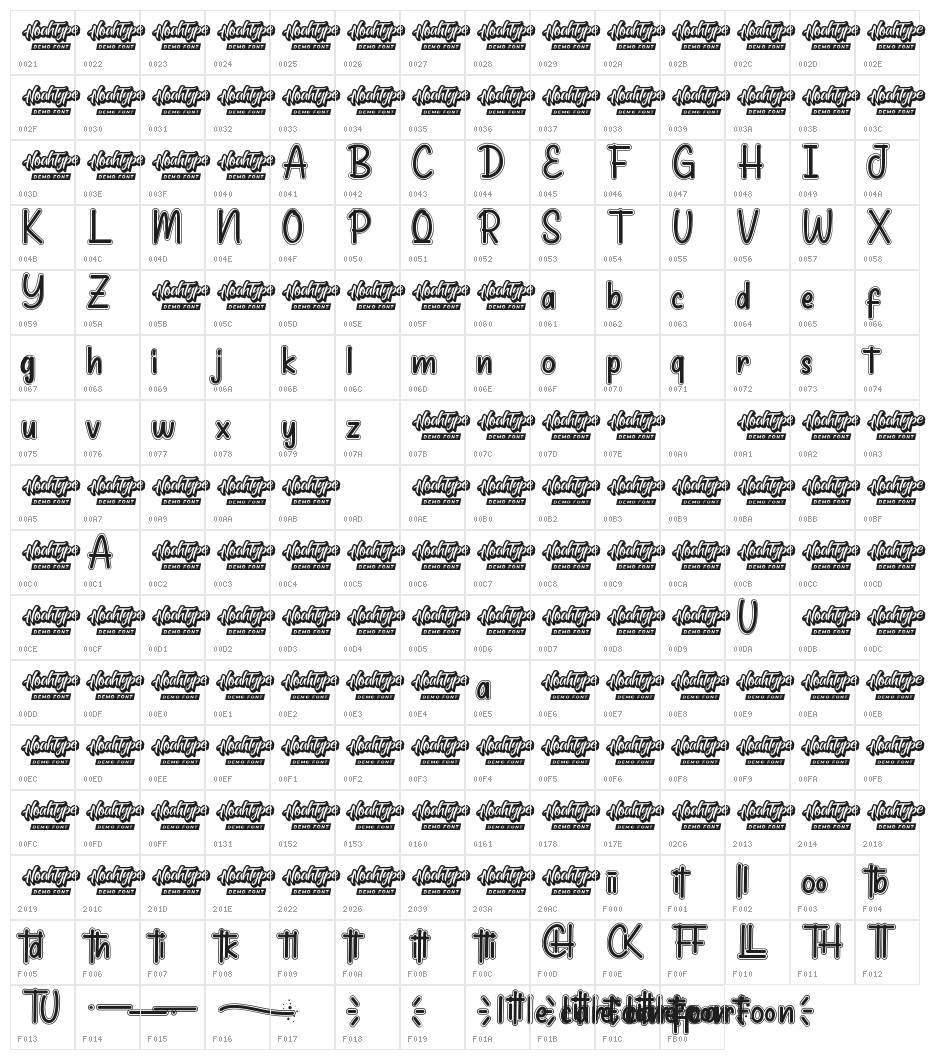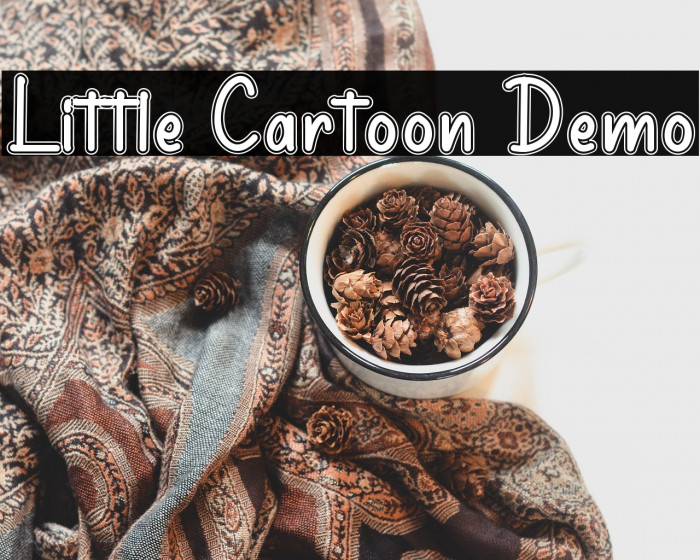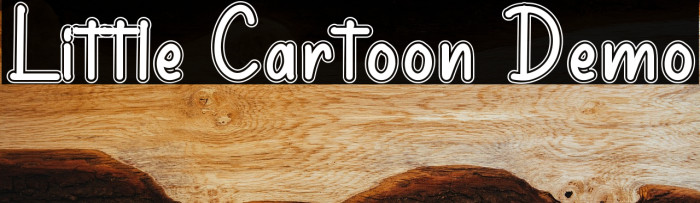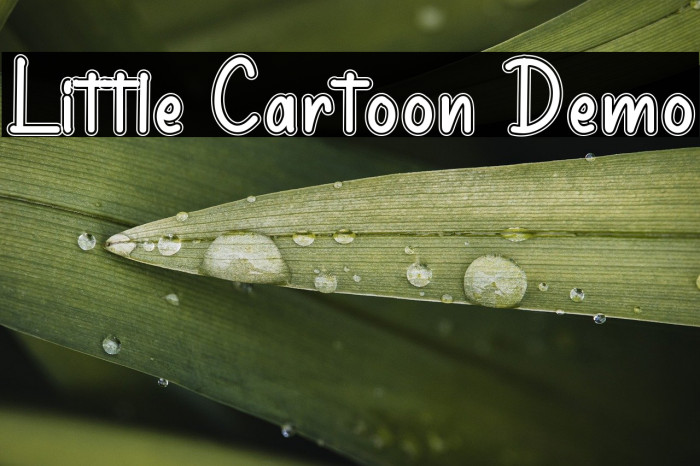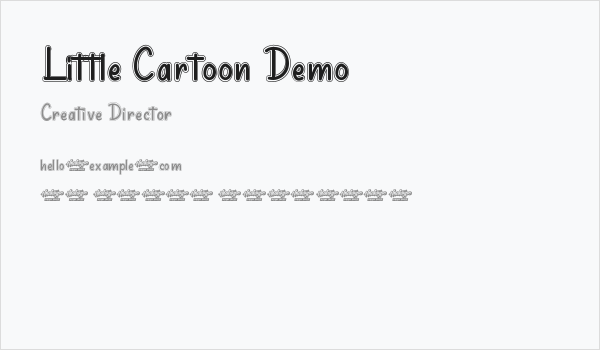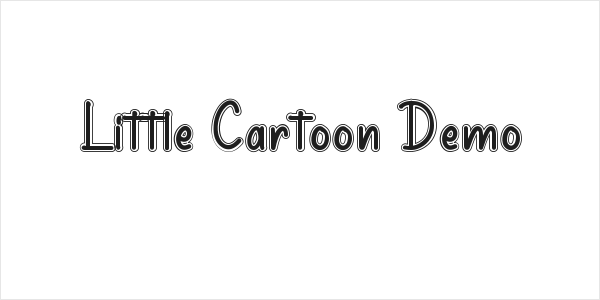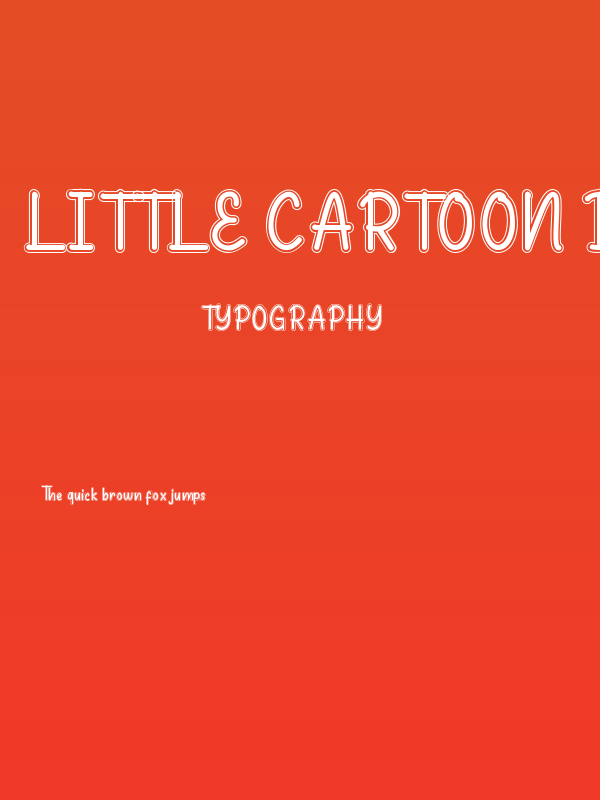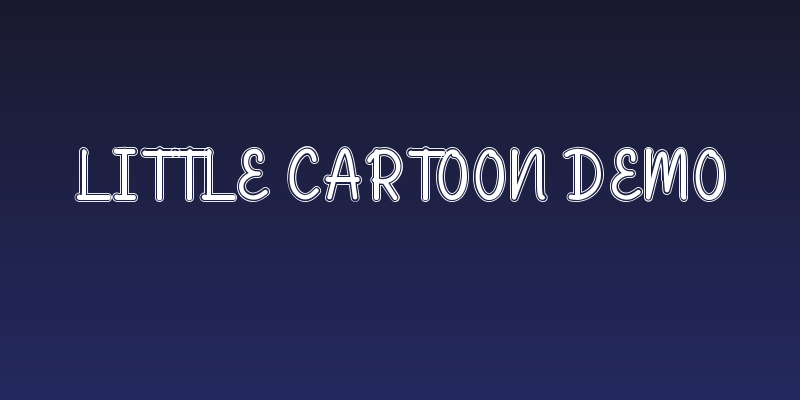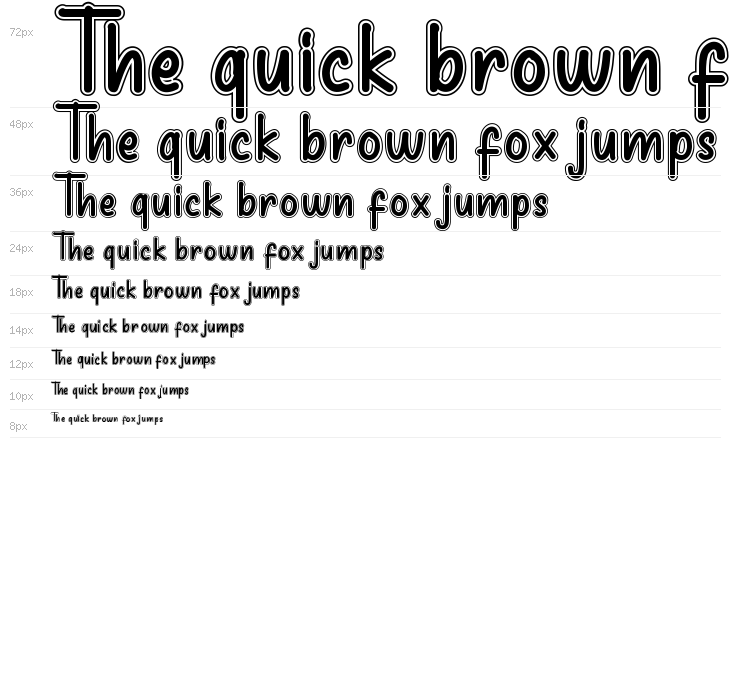
Little Cartoon Demo Font
Little Cartoon Demo Description
This playful and bold font features a cartoon-like style with thick outlines that give each character a distinct and lively appearance. The uppercase and lowercase letters maintain a consistent and rounded form, adding to the whimsical nature of the design. The characters are well-spaced, ensuring readability while maintaining a fun and engaging aesthetic. The font's style is reminiscent of comic book lettering, making it ideal for projects that require a touch of humor and creativity. Its unique design is perfect for capturing attention and conveying a sense of fun and excitement.
| Overall Style | Cartoonish, Fun, Playful |
| Proposed Projects | Ideal for children's books, comic strips, playful branding, and eye-catching posters. |